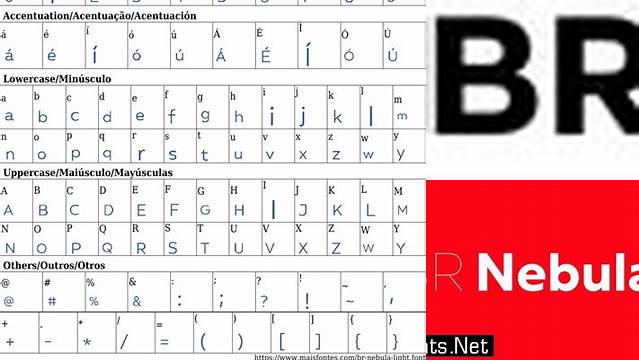
Hey guys! Are you looking to add a touch of futuristic flair to your projects? The BR Nebula Light font might just be what you need. This sleek and modern typeface is perfect for various design purposes, from branding to web design. Let's dive into everything you need to know about this awesome font and how you can snag it for free.
What is BR Nebula Light Font?
BR Nebula Light is a contemporary sans-serif font characterized by its clean lines and geometric shapes. It's designed to be highly legible, making it suitable for both headlines and body text. The font's lightness gives it an airy and sophisticated feel, perfect for projects aiming for a modern and minimalist aesthetic. Its versatility allows it to be used across a wide range of applications, from digital designs to print materials. The design is carefully crafted to ensure readability even at smaller sizes, which is a crucial factor for user experience, especially in web and mobile applications. Moreover, the font family often includes various weights and styles, offering designers flexibility in their typographic choices. The balanced proportions and subtle details contribute to the overall polished appearance, making it a favorite among designers seeking a blend of functionality and style. Its clean and modern aesthetic ensures it remains relevant and adaptable across various design trends. With its focus on clarity and visual appeal, BR Nebula Light stands out as a reliable choice for projects that require a touch of contemporary elegance.
Why Choose BR Nebula Light?
Choosing the right font can make or break your design. The BR Nebula Light font offers a unique blend of modern aesthetics and readability, setting it apart from conventional typefaces. Its clean lines and geometric shapes create a visually appealing and contemporary look, perfect for projects aiming to convey sophistication and innovation. One of the primary reasons to opt for BR Nebula Light is its versatility; it works seamlessly in both headlines and body text, ensuring a cohesive design across all elements. The lightness of the font adds an airy feel, making it ideal for minimalist designs or projects that require a touch of elegance. Furthermore, BR Nebula Light is designed with legibility in mind, ensuring that your message is easily readable, whether it's displayed on a screen or printed on paper. This is particularly important for user experience, as clear typography can significantly enhance engagement and comprehension. The availability of different weights and styles within the font family provides designers with the flexibility to create visual hierarchy and add depth to their designs. Whether you're working on a website, a branding project, or print materials, BR Nebula Light can elevate your design with its modern and polished appearance. Its ability to maintain clarity and visual appeal in various contexts makes it a reliable and valuable asset for any designer.
BR Nebula Light Font Features
The BR Nebula Light font comes packed with features that make it a designer's dream. First off, it boasts exceptional readability. The font's clear, clean design ensures that text is easily legible, whether it's used for headlines or body text. This is especially important for maintaining user engagement and ensuring that your message is effectively communicated. Another key feature is its modern aesthetic. The geometric shapes and light weight give the font a contemporary feel, making it perfect for projects that aim to convey innovation and sophistication. The font also offers versatility. It can be used in a variety of design contexts, from web design and branding to print materials and advertising. The availability of different weights and styles within the font family allows for greater design flexibility, enabling designers to create visual hierarchy and add depth to their work. Additionally, BR Nebula Light often includes a wide range of characters, including uppercase and lowercase letters, numbers, punctuation marks, and special symbols, providing comprehensive support for various languages and design needs. Its balanced proportions and subtle details contribute to its overall polished appearance, making it a reliable choice for projects that require a touch of elegance. Overall, the features of BR Nebula Light combine to create a font that is both functional and visually appealing, making it a valuable asset for any designer.
Using BR Nebula Light in Web Design